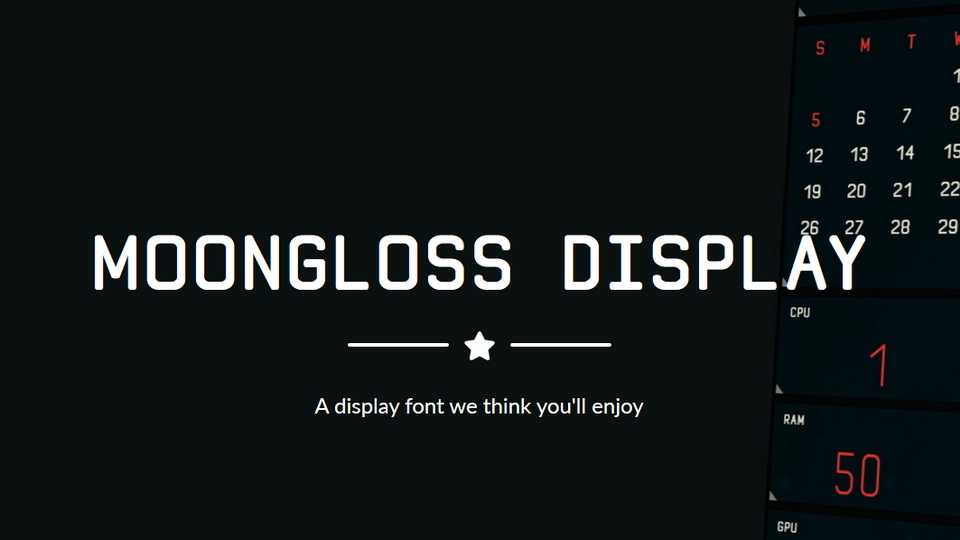
Download Moongloss typeface, a monospaced display font family in three weights. Moongloss looks reasonably futuristic yet polished and elegant to display the date, time, or little bits of information.
Designer: Immanuel Smith